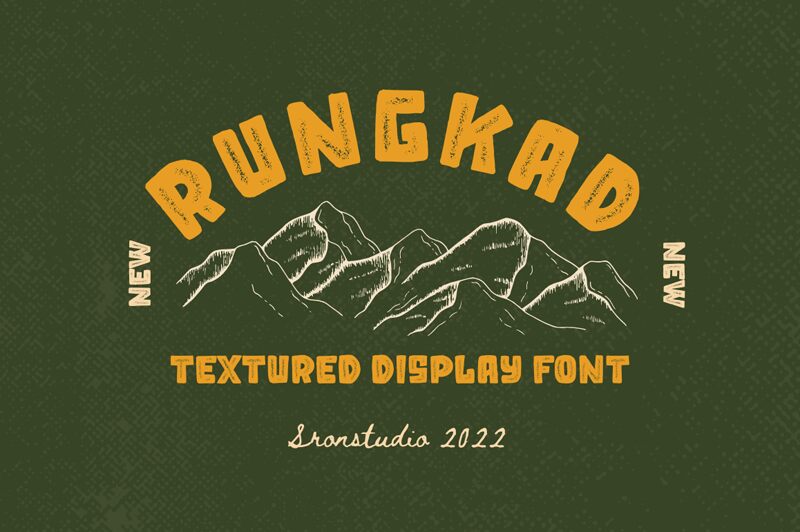
RUNGKAD
Rungkad, designed by sronstudio, is an extraordinary display font that showcases a unique textured style. With its extra-bold weight and rough texture, RUNGKAD exudes a natural and vintage vibe.
This font is perfect for a wide range of projects such as outdoor apparel designs, merchandise branding, eye-catching event posters, and captivating movie titles. Its distinct characteristics add an authentic touch to any creative endeavor, making it the ideal choice for those seeking to stand out from the crowd.